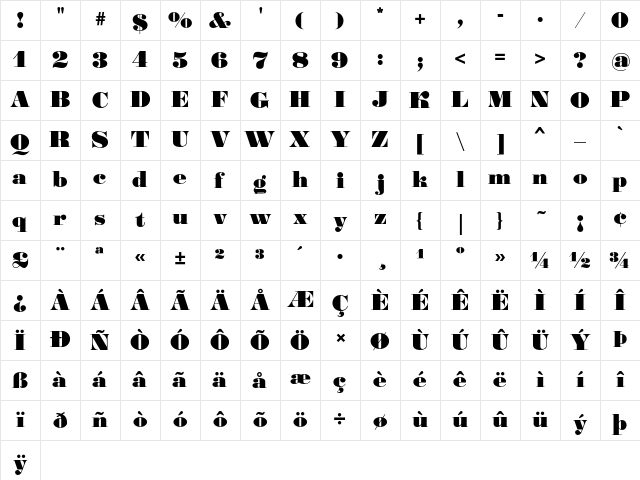
Gourmandise Bold Free Font
Gourmandise Bold
Gourmandise Family
Complete Gourmandise Bold glyph index. Displaying only characters natively supported by Gourmandise Bold font.
Design Context for Gourmandise
Gourmandise is a composed and adaptable typeface that performs quietly and consistently across a wide range of design contexts. Its bold stroke weight gives it real presence on the page.